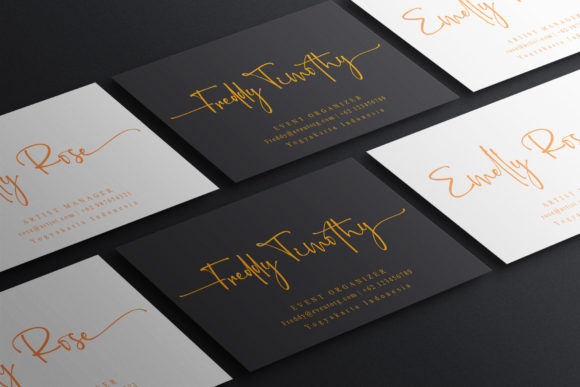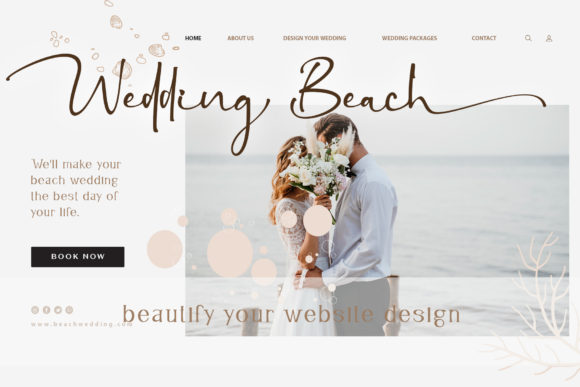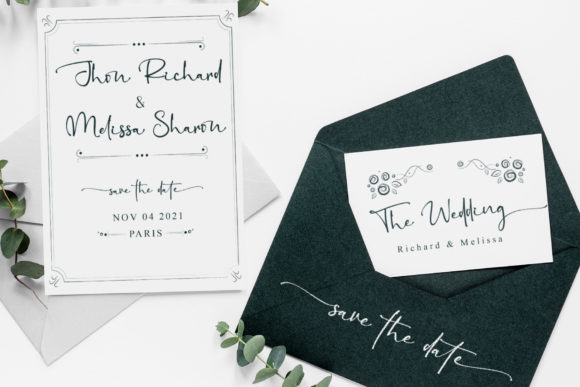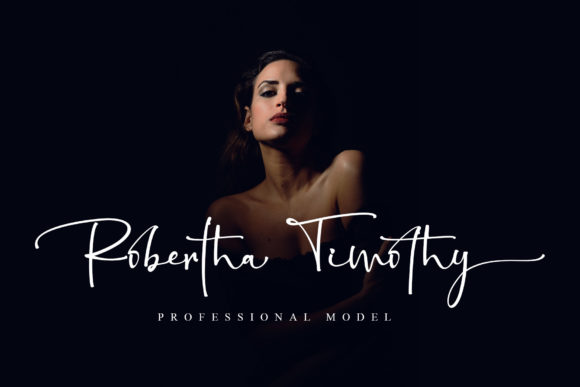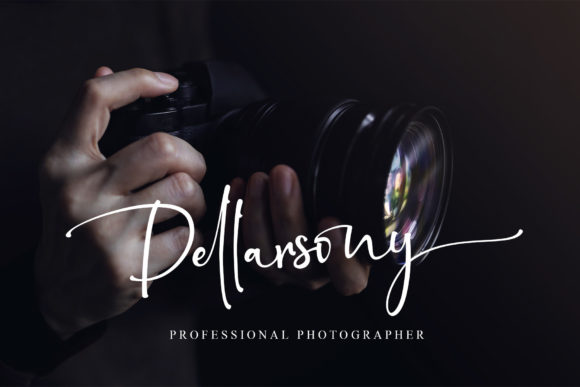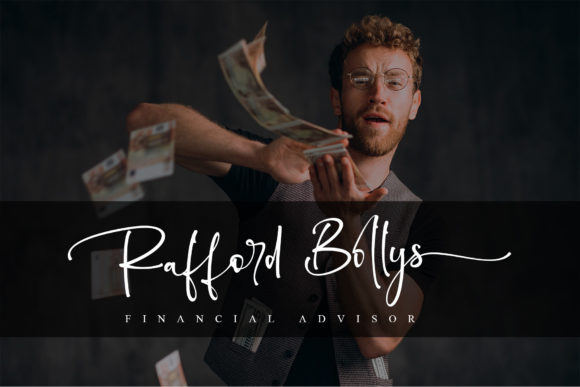
There’s something magical about the moment when a design comes together – the way the colors blend, the curves of the shapes, and the flow of the text. It’s a feeling that’s hard to put into words, but it’s the spark that ignites creativity and inspires us to push the boundaries of what’s possible. For me, it’s the moment when I find the perfect font to match my vision.
Enter the Bellarosa Font – a sweet and delicate handwritten font that’s sure to add a touch of whimsy to your designs. Whether you’re crafting wedding invitations, cards, or any other design that needs a personalized touch, Bellarosa is the perfect choice. Its dainty and joyful feel is both charming and elegant, making it a valuable addition to any designer’s toolkit.
What sets Bellarosa apart is its PUA encoding, which allows designers to access all of the glyphs and swashes with ease. This means you can unlock the full potential of this beautiful font and create truly unique and eye-catching designs.
Bellarosa Font Key Features
- Font Style: Script, Calligraphy, Decorative
- Unique Characteristics: Elegant, cursive, and highly legible, making it ideal for wedding invitations, greeting cards, and other special occasions
Bellarosa Font Review
I recently had the chance to work with the Bellarosa font, and I must say it’s a unique and stylish addition to any design project. ✨ The font’s elegant and sophisticated feel makes it perfect for creating a high-end or luxury brand identity. The rounded edges and soft curves give it a touch of femininity, while the strong and sturdy lines evoke a sense of confidence and power.
- ✨ Elegant and sophisticated feel, perfect for luxury brands
- ✨ Versatile and suitable for a wide range of design projects
- ✨ Highly legible, even at smaller font sizes
- ✨ Supports multiple font styles, including regular, bold, and italic
- ⚠️ Limited character set, may not be suitable for projects requiring complex typography
- ⚠️ May not be as versatile as other fonts for projects requiring bold, graphic typography
Overall, I’m impressed with the Bellarosa font’s elegance and sophistication. While it may have some limitations, it’s a great choice for designers looking to create a high-end or luxury brand identity. With its unique style and high legibility, it’s definitely worth considering for your next design project.
Tips for Getting the Most Out of Bellarosa Font
Use Bellarosa Font to create elegant and sophisticated designs.
Pair it with a bold font for contrast and visual interest.
Experiment with different font sizes and styles to create a unique look.
Bellarosa Font is ideal for:
Corporate branding and marketing materials.
High-end product packaging and labels.